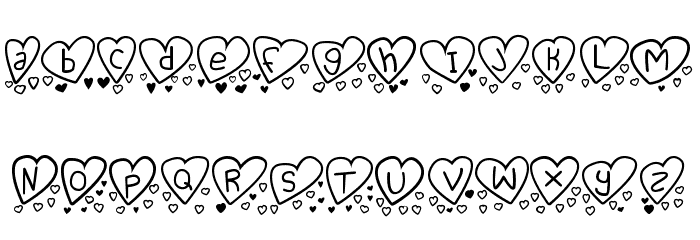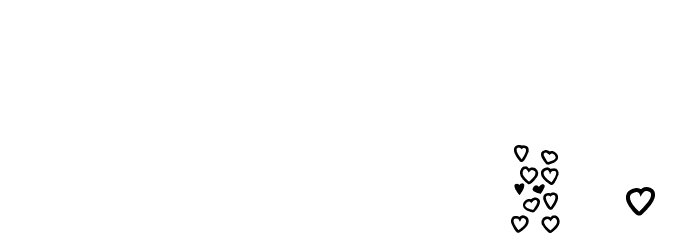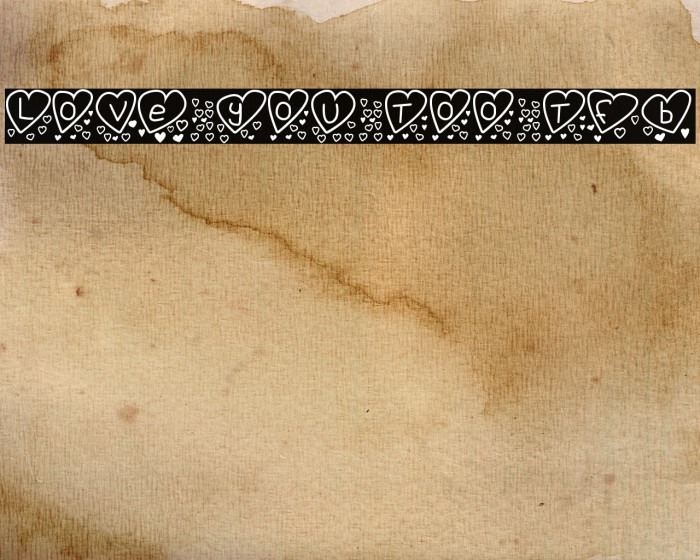
Love you too tfb Font
This playful and decorative font features letters encased in heart shapes, creating a whimsical and romantic aesthetic. Each character is surrounded by small heart motifs, adding to its charm and uniqueness. The font is characterized by its bold outlines and consistent heart-themed design, making it ideal for projects that require a touch of love and creativity. The uniformity of the heart shapes provides a cohesive look, while the playful arrangement of additional hearts around the letters adds a dynamic and engaging visual element.
A playful, heart-themed decorative font with bold outlines.
- Proposed Projects: Ideal for Valentine's Day cards, wedding invitations, romantic event posters, and love-themed merchandise.